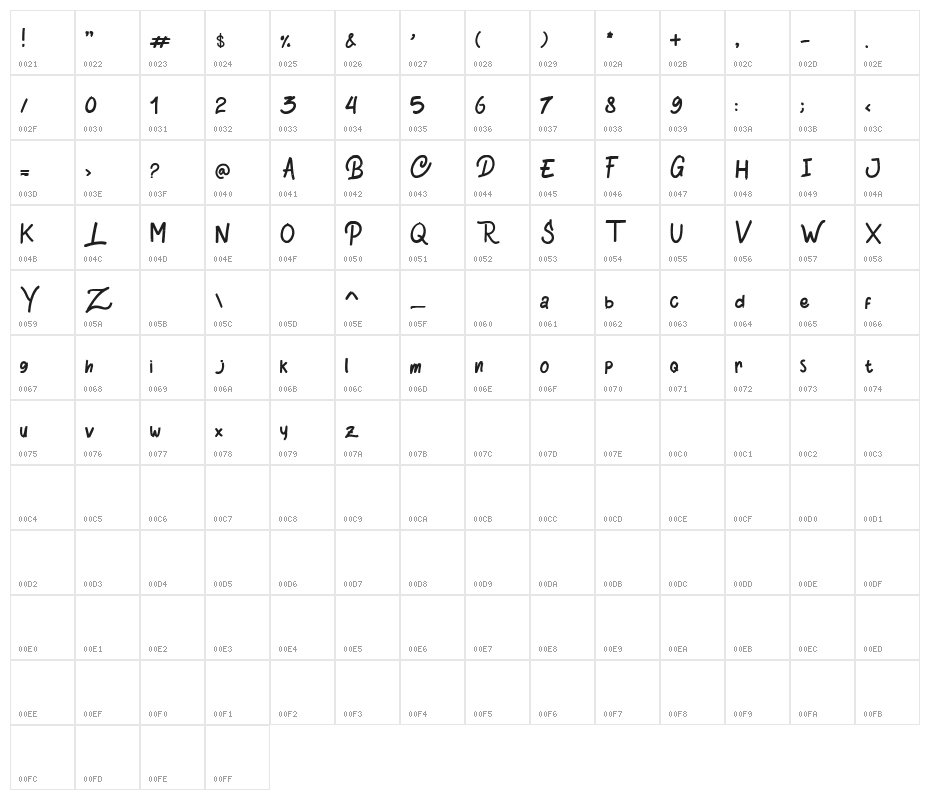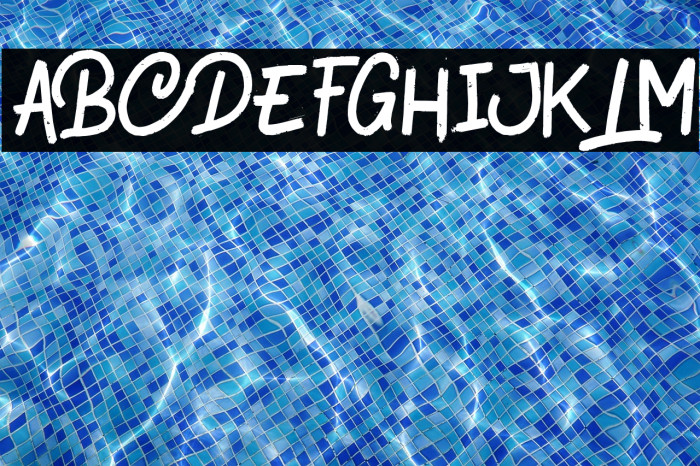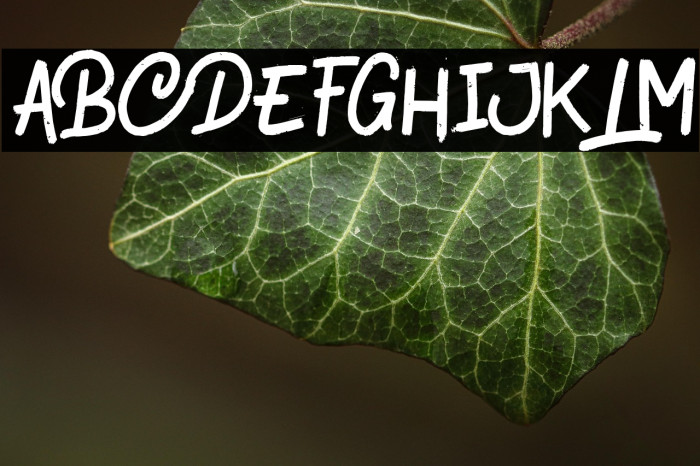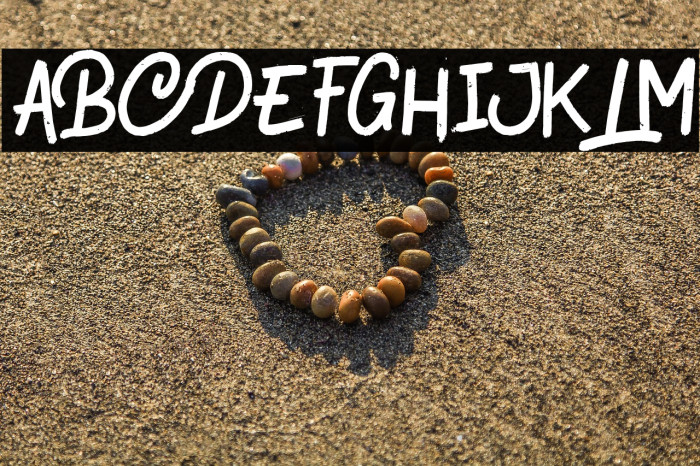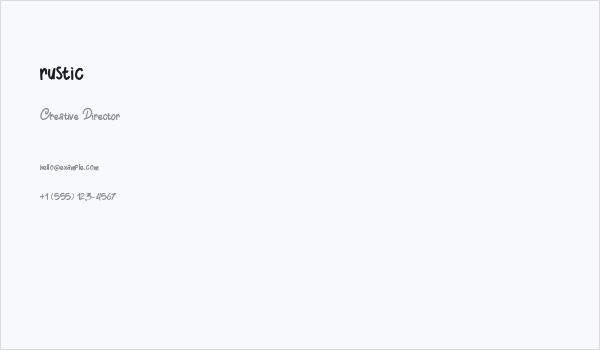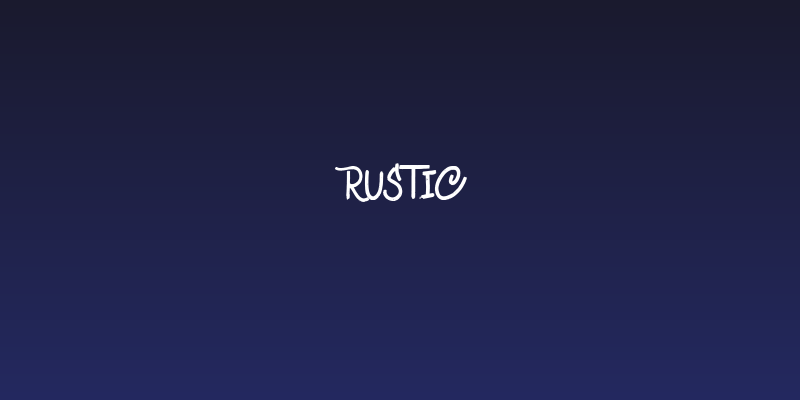
rustic Font
rustic Description
This font exudes a rustic and hand-drawn charm, characterized by its uneven strokes and playful curves. The uppercase letters are bold and slightly irregular, giving a sense of spontaneity and creativity. The lowercase letters maintain a consistent style, with a casual and approachable feel. Numbers and special characters follow the same aesthetic, ensuring a cohesive look across all text. The font's unique style makes it ideal for projects that require a personal touch, such as invitations, greeting cards, or branding for artisanal products.
| Overall Style | Rustic, Playful |
| Use Case | Headlines, Logos, Creative projects |
| Proposed Projects | Ideal for invitations, greeting cards, artisanal product branding, and creative projects. |